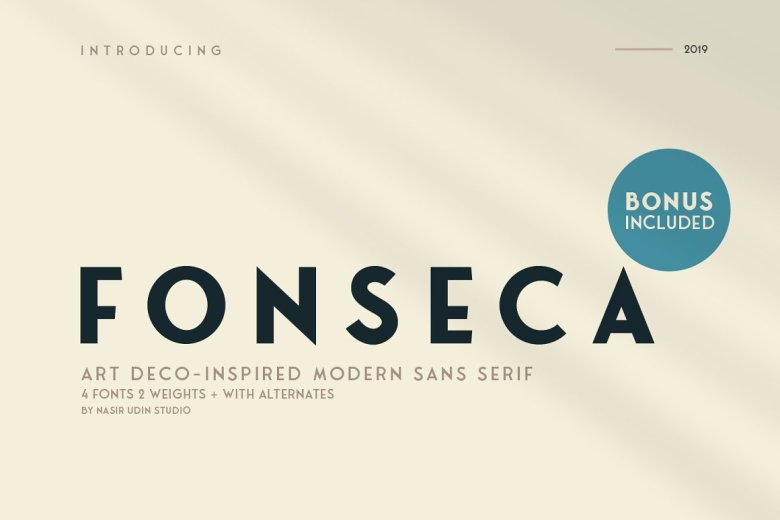
Fonseca Font
Fonseca is a modern sans-serif font with 4 fonts, 2 weights + with alternates. It’s just experimental enough to be unique but classic enough to versatile from body copy to word-marks. Use this font for your new project! It is designed and shared by Nasir Udin. Fonseca Font Family is a modern sans serif inspired by art deco and typography poster in early 20th century. The key of this all caps family is simple straight geometric forms and modernized letterforms.
This display family is perfect for headlines, posters, logos, branding projects, magazines, and packaging. The modernized retro-look make this family great to presents any contents related to travel, history & culture in the present/modern way.
Fonseca Sans Serif Font